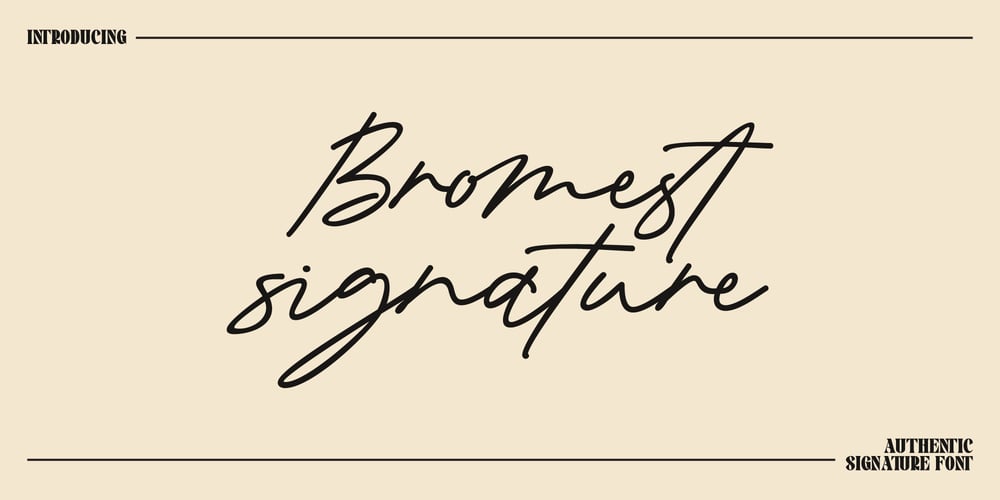
Bromest Signature
Bromest Signature font
Bromest Signature Font Family was designed by Ferdiansyah and published by ijemrockart. Bromest Signature contains 1 styles and family package options. Bromest Signature with a handmade Signature style, decorative characters and a dancing baseline! So beautiful on invitation like greeting cards, branding materials, business cards, quotes, posters, and more!!Bromest Signature come with 200+ glyphs. The alternative characters were divided into several Open Type features such as Swash, Stylistic Sets, Stylistic Alternates, and Ligature. The Open Type features can be accessed by using Open Type savvy programs such as Adobe Illustrator, Adobe InDesign, Adobe Photoshop Corel Draw X version, And Microsoft Word. And this Font has given PUA unicode (specially coded fonts). so that all the alternate characters can easily be accessed in full by a craftsman or designer.Bromest Signature Features :Uppercase & Lowercase International Languange & Symbols Support Punctuation & Number PUA Unicode Range Standard Ligatures Discretionary Ligatures Stylistic Alternates Stylistic Set.Thank you,